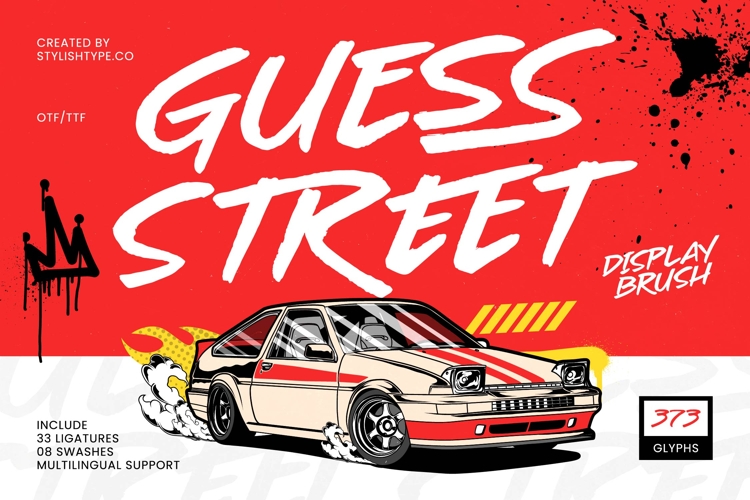
Guess Street Display Brush Font
Guess Street – Display Brush Font
Unleash the raw energy of urban culture with Guess Street – Display Brush Font, a powerhouse typeface designed for maximum visual impact. This display brush font captures the essence of street-style grit with its hand-drawn aesthetics and high-contrast strokes, ensuring your headlines command immediate attention. Whether you are aiming for a rebellious edge or a fast-paced athletic vibe, Guess Street – Display Brush Font provides the authentic dry brush texture needed to make your designs vibrate with life and energy.
Elevate your branding to elite levels with a typeface that is perfect for streetwear apparel, automotive racing graphics, and high-octane event posters. The Guess Street – Display Brush Font excels in luxury branding that seeks a modern, aggressive twist, as well as dynamic packaging and bold editorial layouts. Its expressive character makes it the ultimate choice for designers looking to inject raw motion and contemporary attitude into their portfolios and marketing campaigns.
Engineered for the modern creative professional, this typeface offers an impressive suite of 33 ligatures and 8 custom swashes to create truly unique layouts. With its extensive multilingual support, Guess Street – Display Brush Font adapts seamlessly across global markets, making it incredibly versatile for international projects and cross-border digital content. This robust feature set ensures that Guess Street – Display Brush Font remains a functional and reliable tool for high-end production across diverse languages and regions.